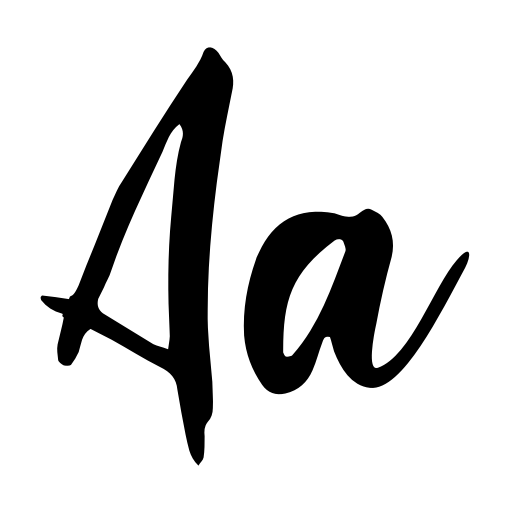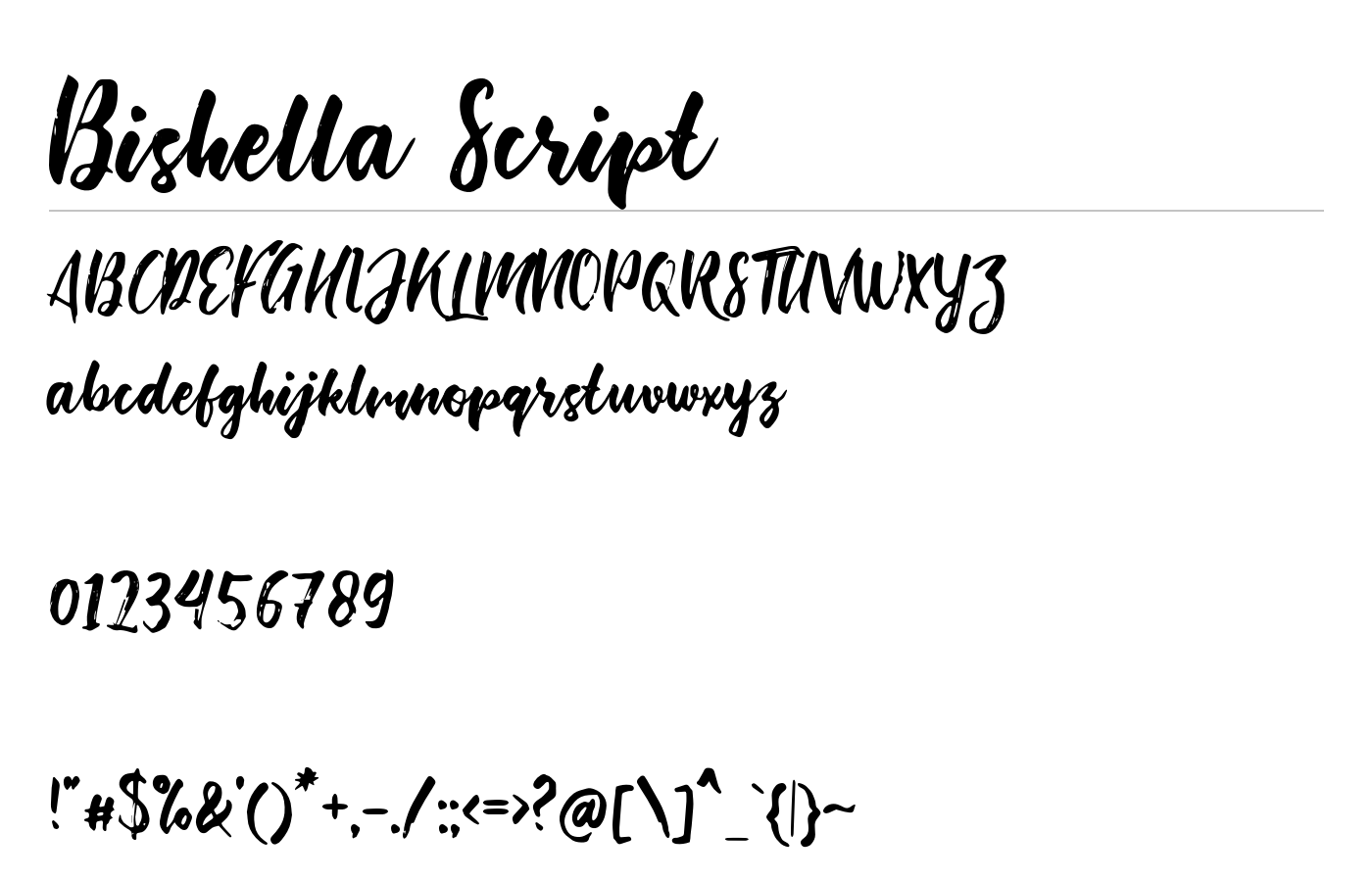
Bishella Script is a lively and expressive handwritten script font featuring varied stroke weights that give it an organic, brush-painted feel. Its playful yet elegant letterforms, with smooth connections and slightly irregular shapes, make it perfect for creative branding, invitations, and eye-catching headlines. This font brings a warm, personal touch that works beautifully in designs seeking a dynamic and artistic vibe.
Bishella Script Font
About Bishella Script Font
| Font family | Bishella Script Font |
| Designer | PointlabStudio |